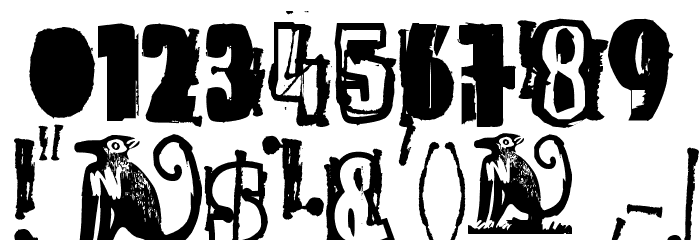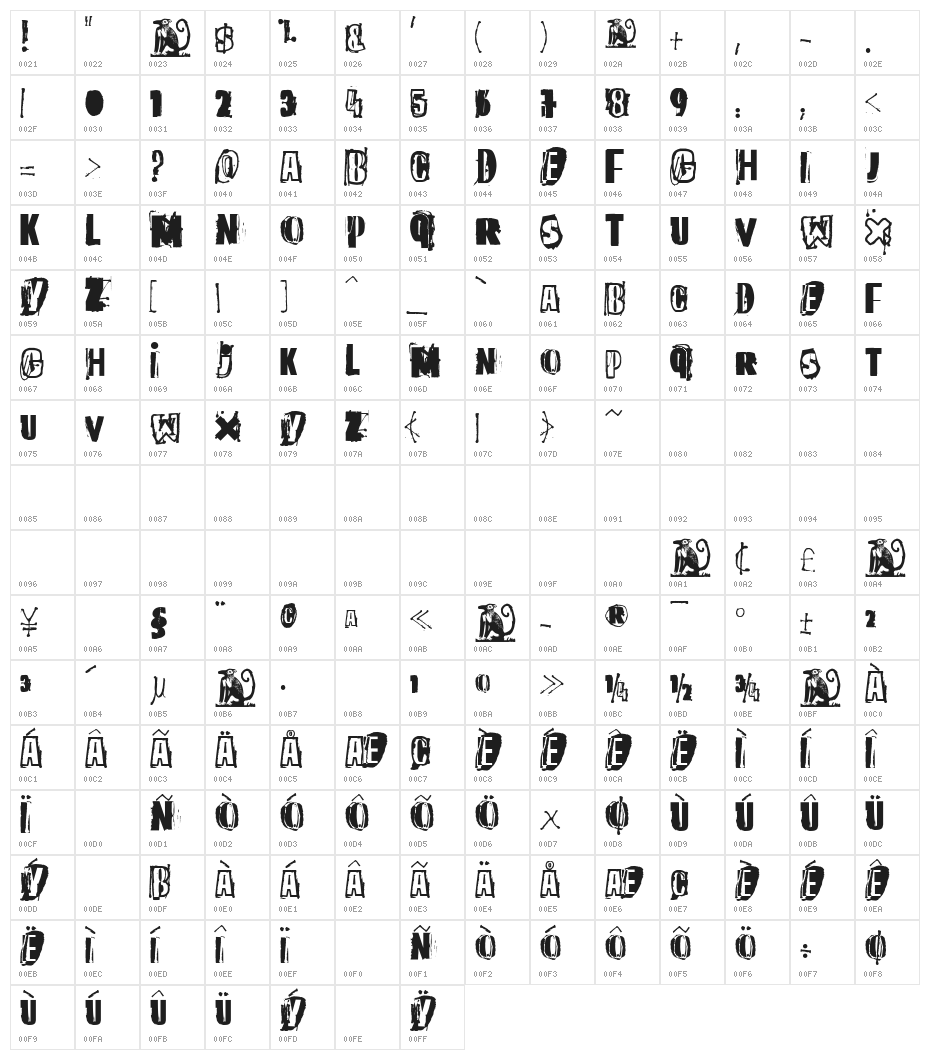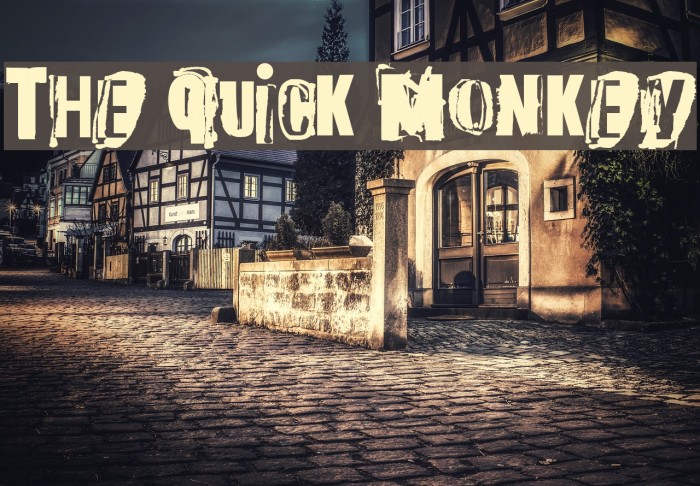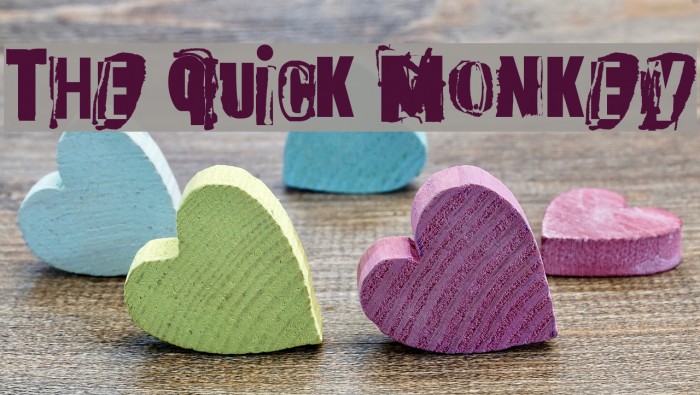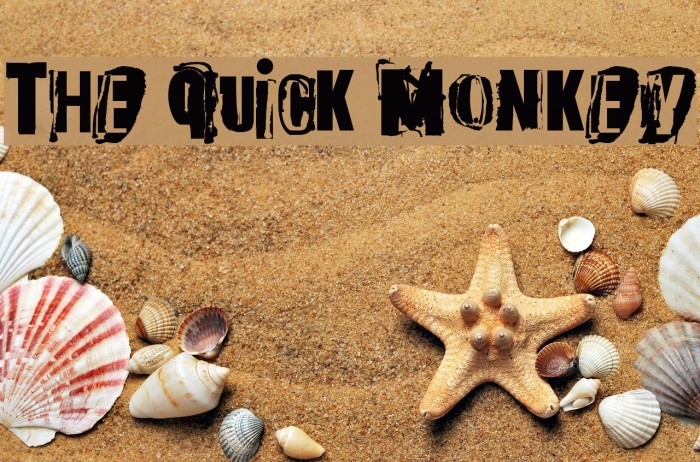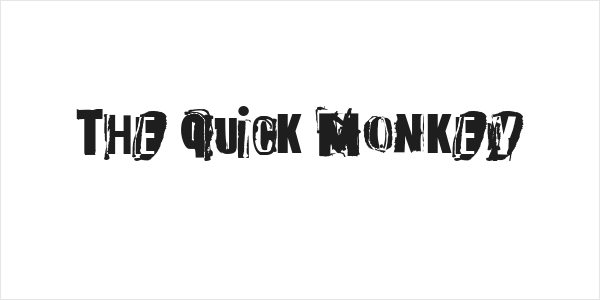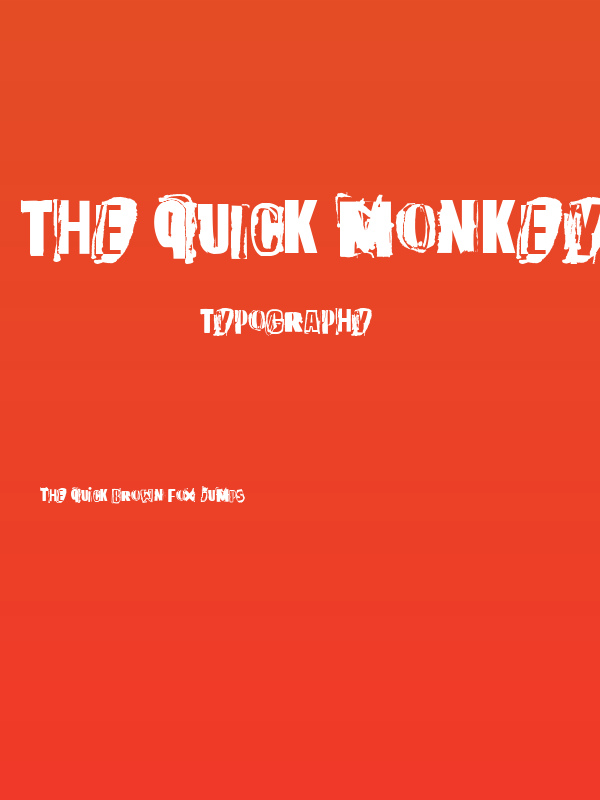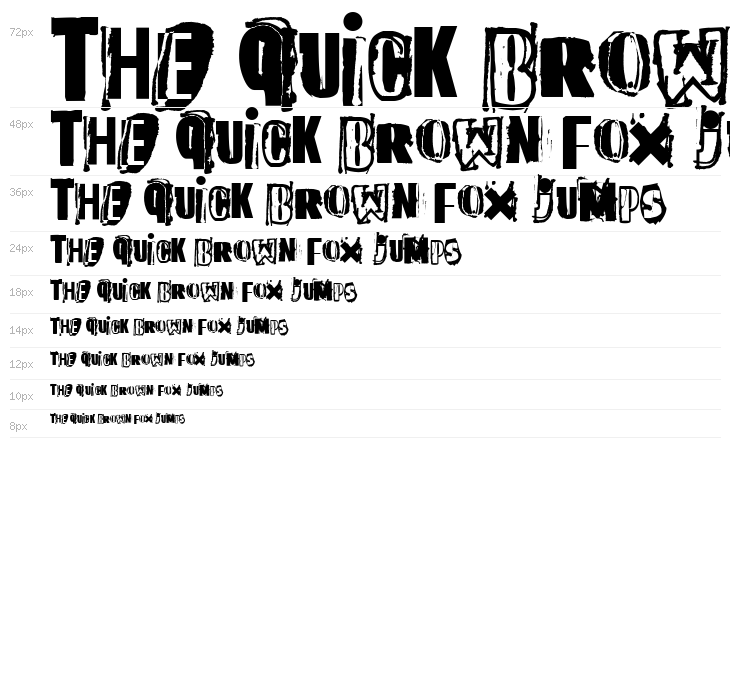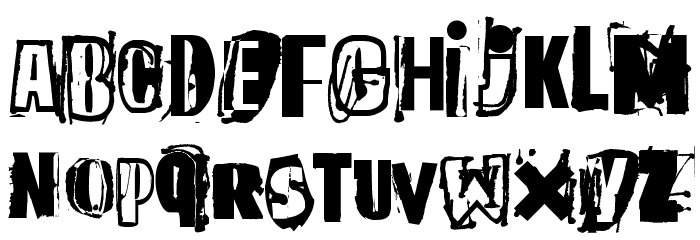
The quick monkey Font
The quick monkey Description
This font features a bold and distressed style, with each character appearing as if it has been roughly painted or stamped. The letters have an uneven texture, giving them a grunge or urban feel. The uppercase and lowercase letters maintain a consistent style, with exaggerated serifs and varying thicknesses that create a dynamic visual impact. Numbers and special characters follow the same aesthetic, ensuring a cohesive look across all elements. The font's unique appearance makes it stand out, ideal for projects that require a strong, edgy, and artistic touch.
| Overall Style | Grunge, Urban, Artistic |
| Proposed Projects | Ideal for album covers, street art-inspired designs, posters, and edgy branding projects. |